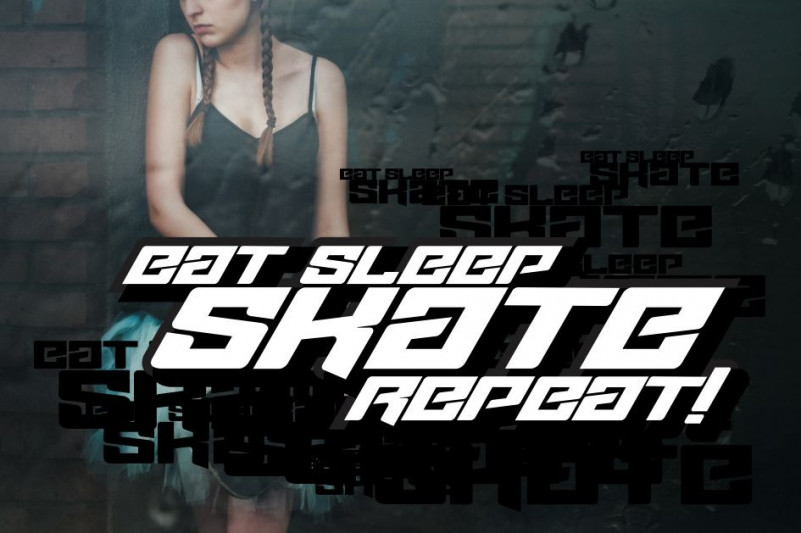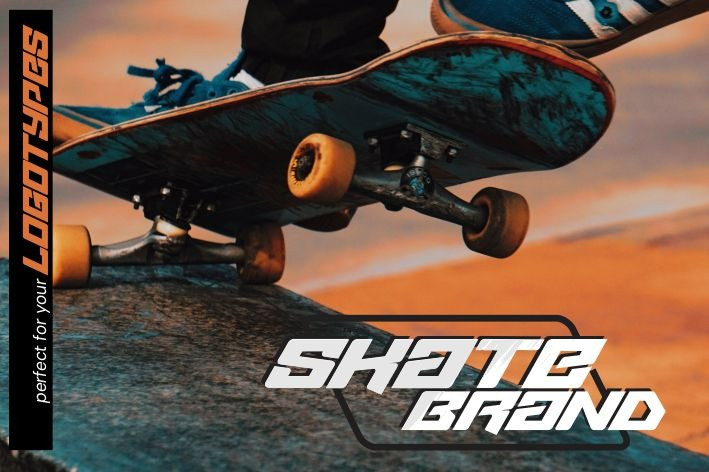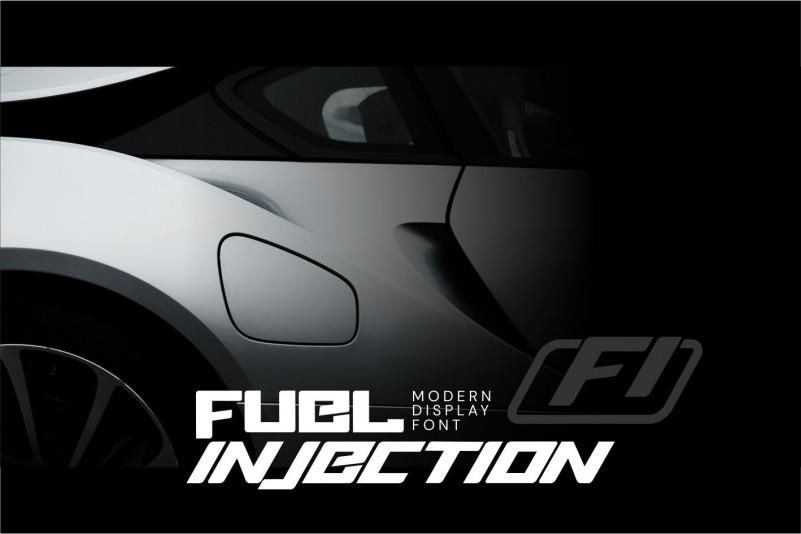
Fuel Injection Display Font
Introducing New Fonts, A wonderful collection for your various special projects. Fuel Injection is a font with a modern futuristic style
Fuel injection is perfect for automotive magazine covers, racing game covers, logos & branding, product designs, labels and so on.